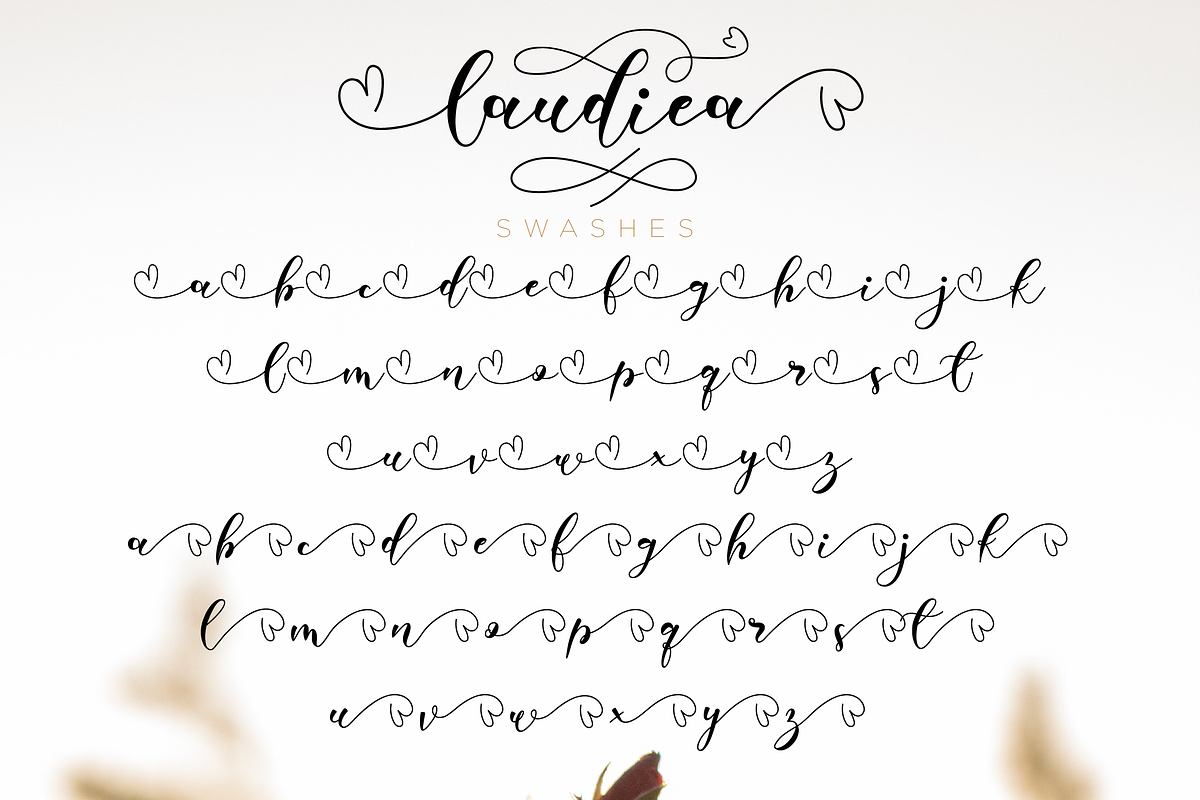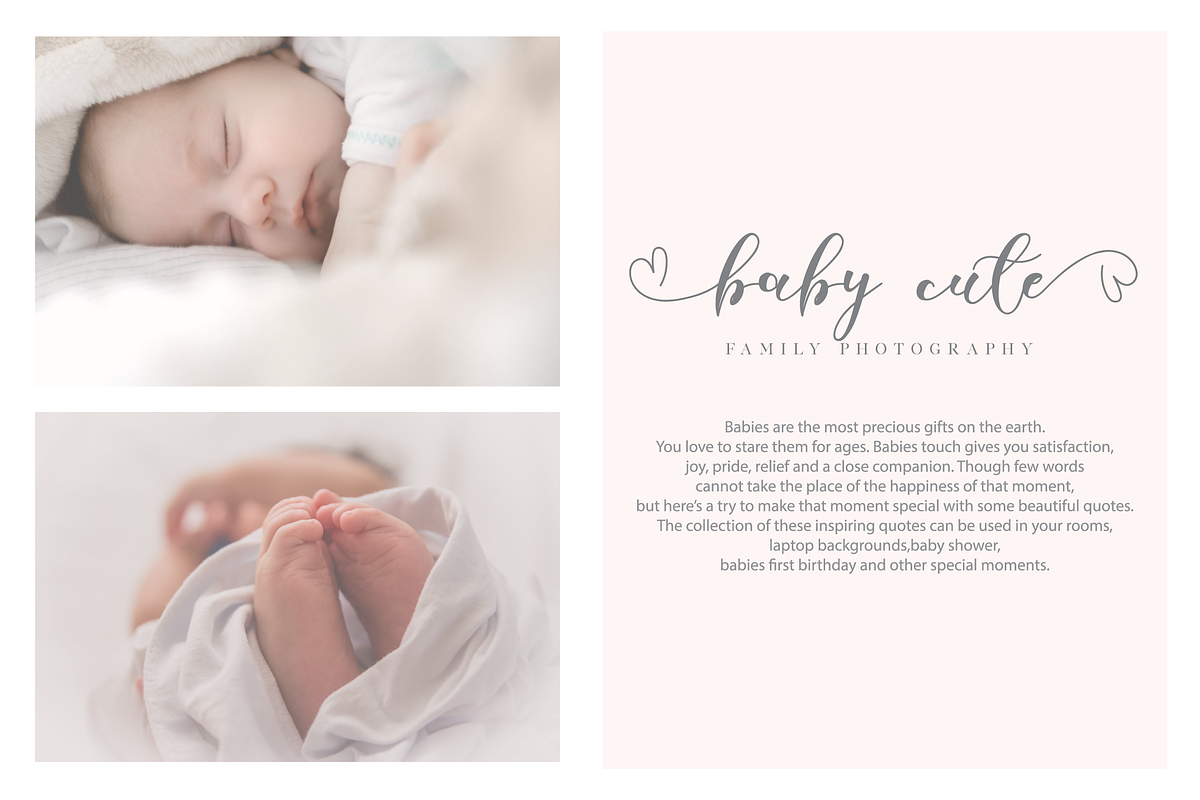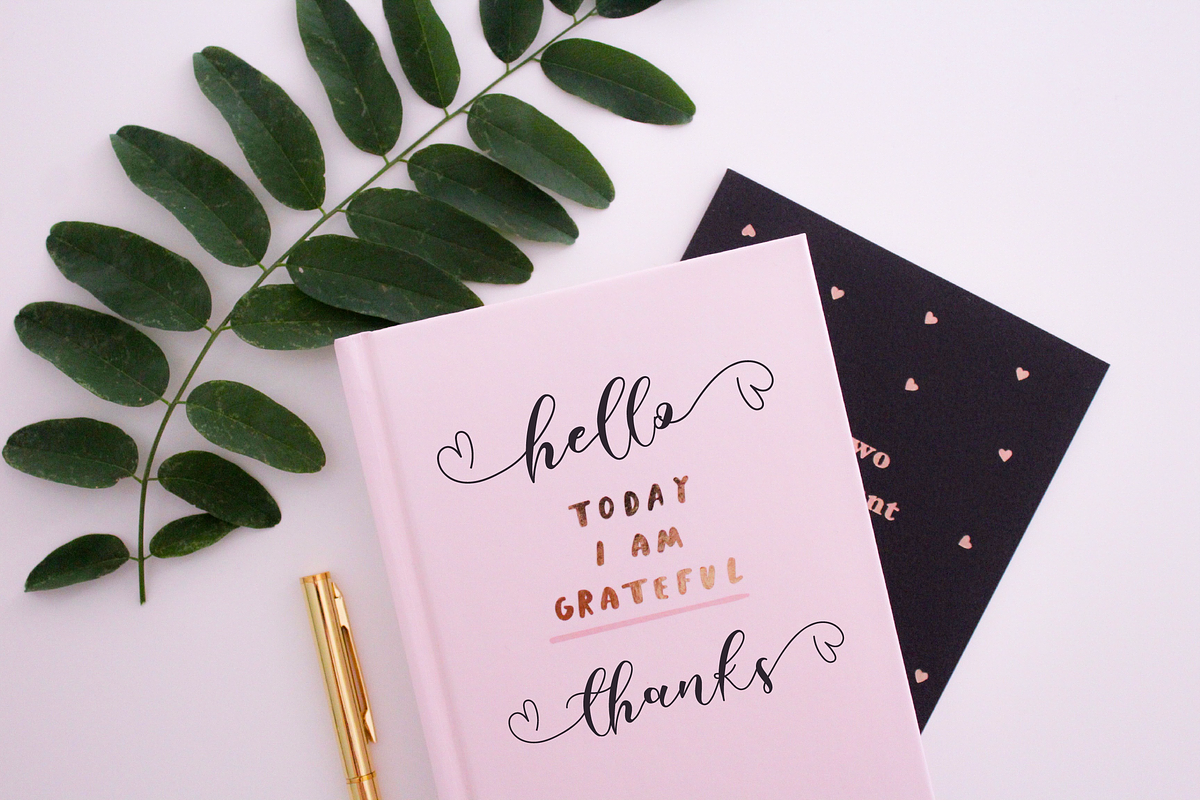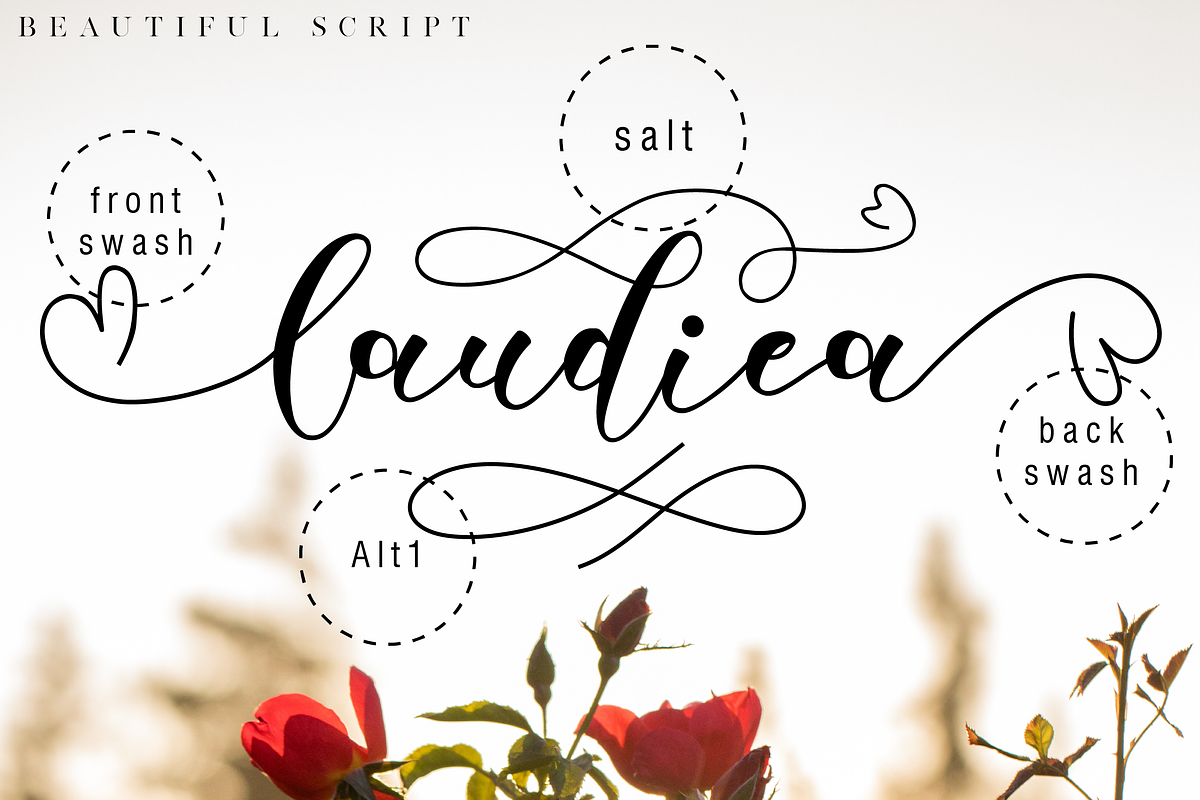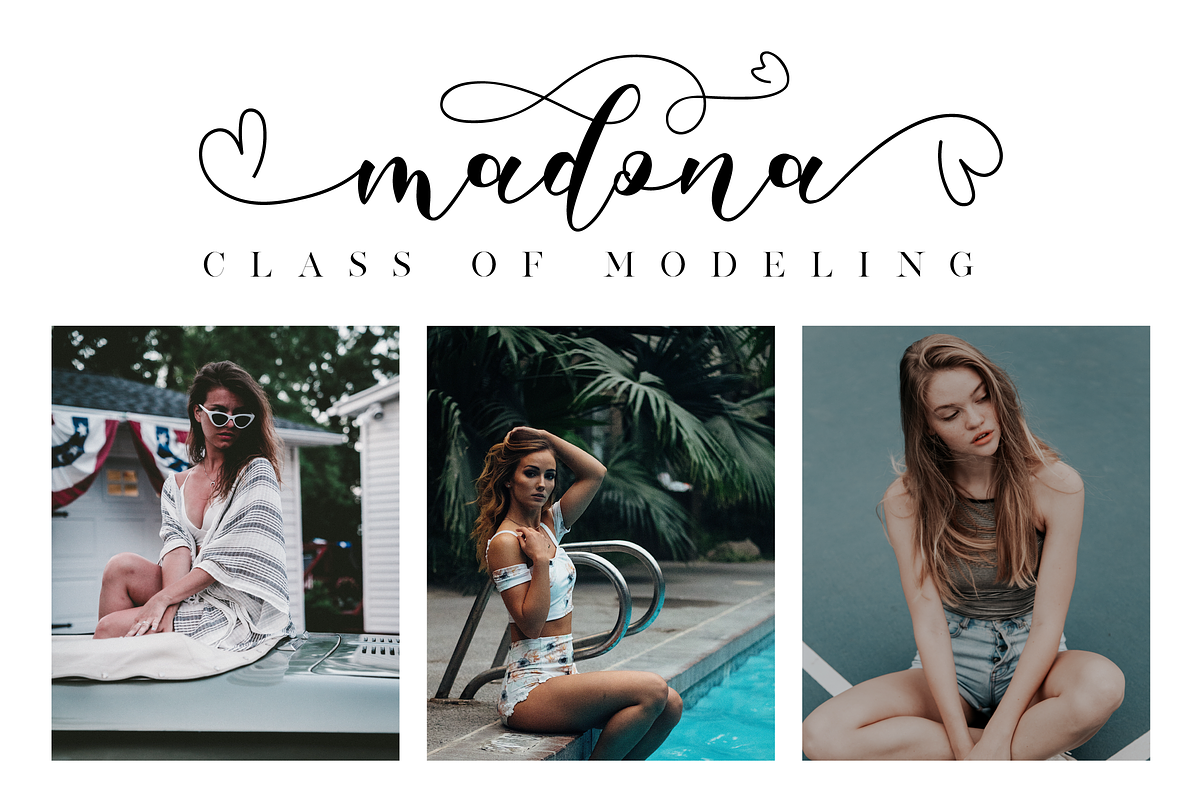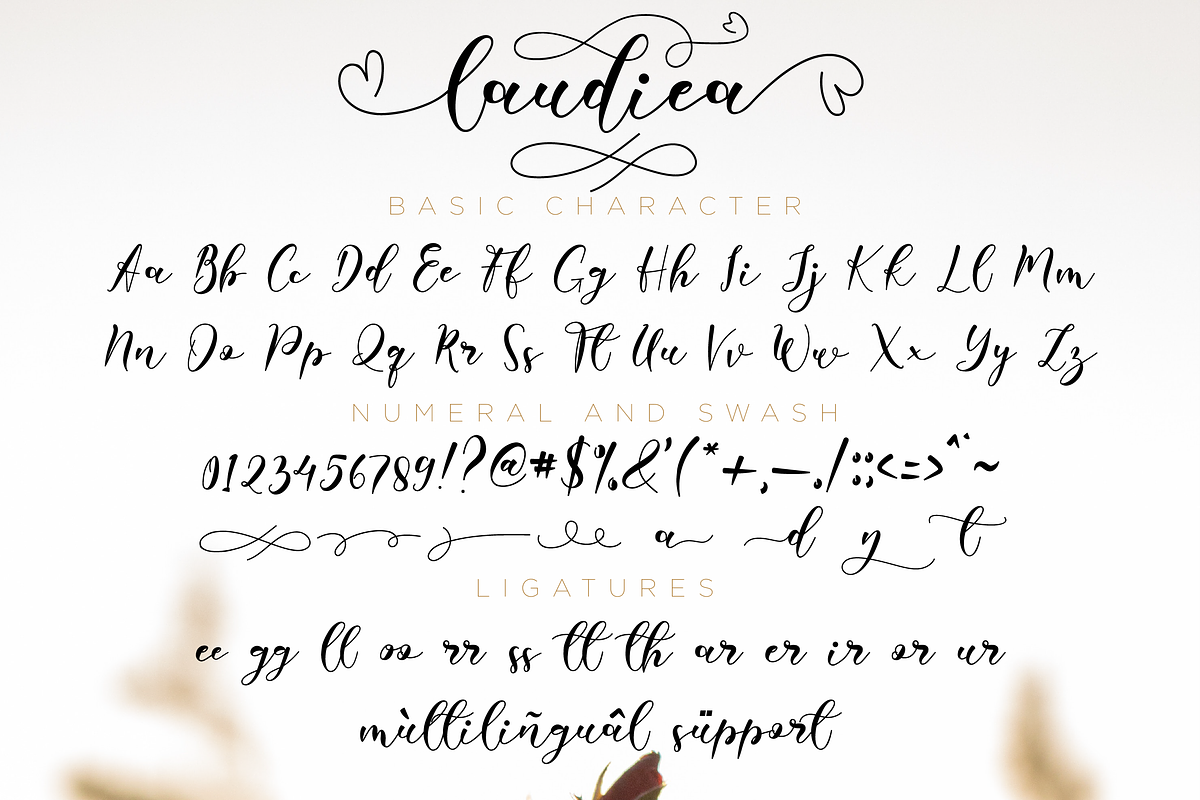
Laudiea // Lovely Script Font
Laudiea is a beautiful script font with a classy, elegant, and modern look. It will add a handwritten touch to any design project!
Why Laudiea // Lovely Script Font is worth a look
Laudiea // Lovely Script Font by Nissa Studio fits naturally into Branding, posters, packaging, typography.